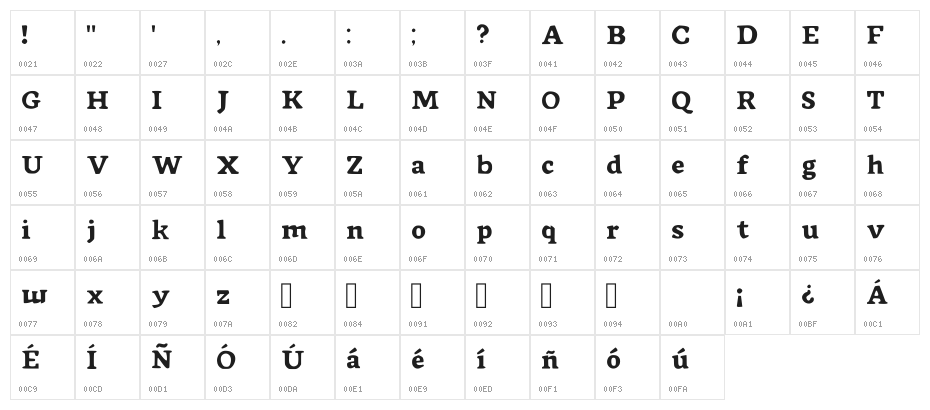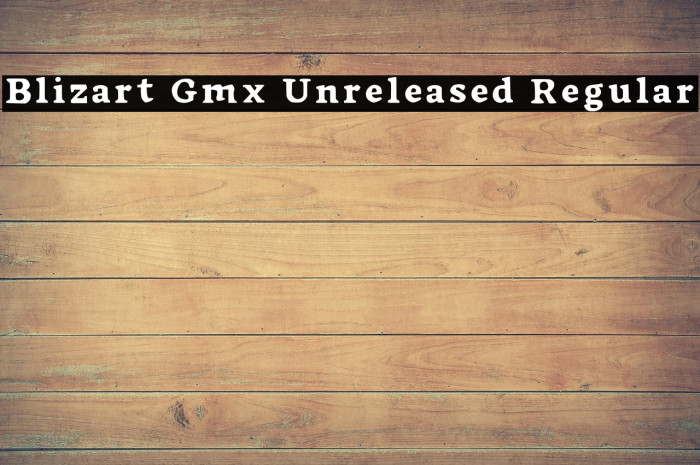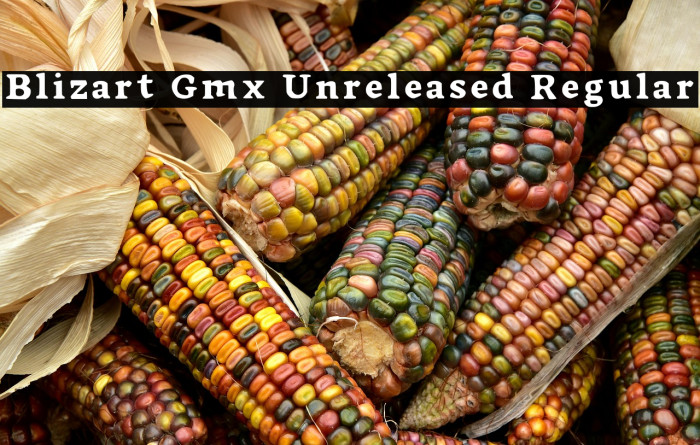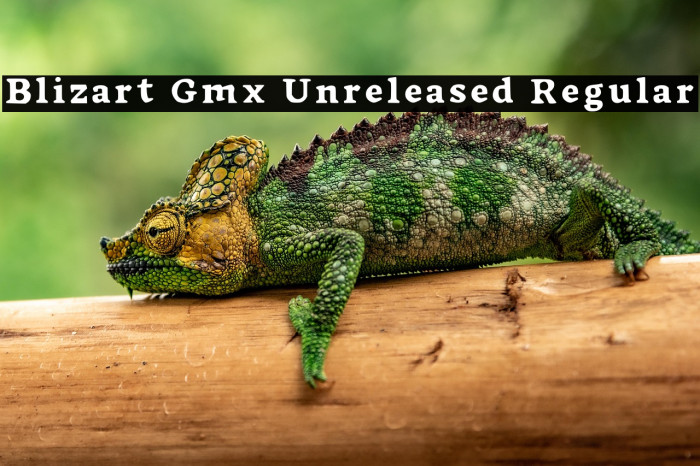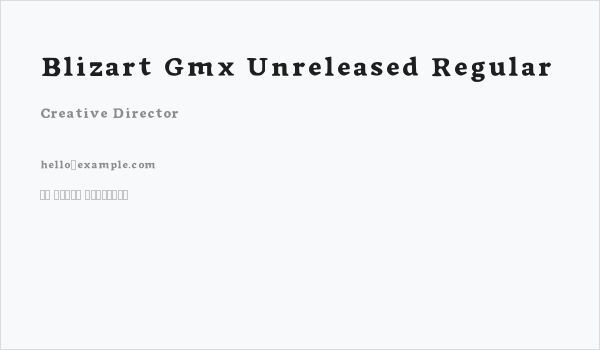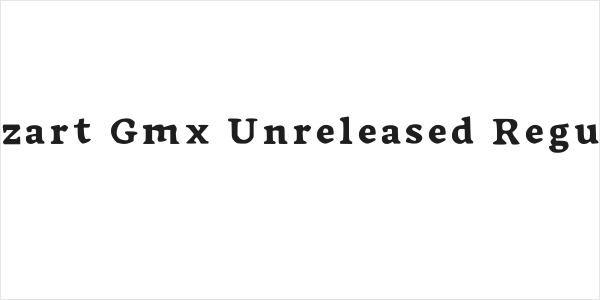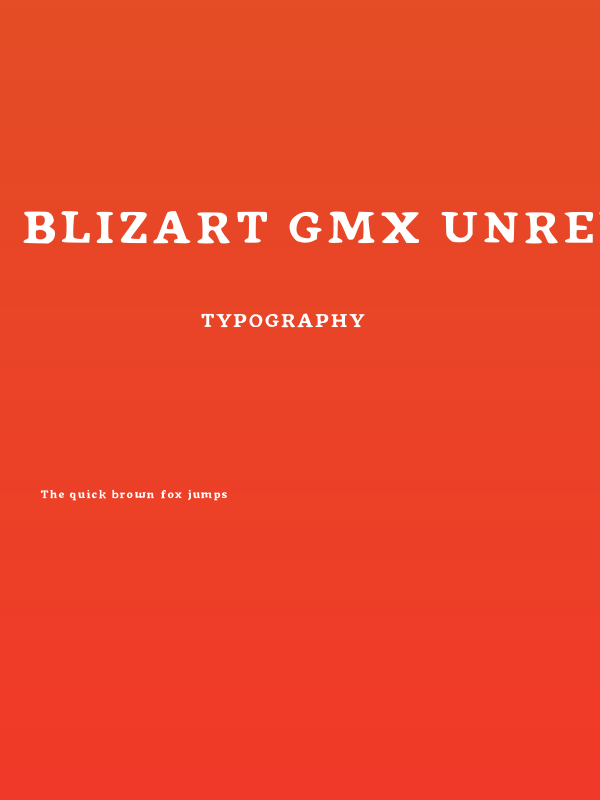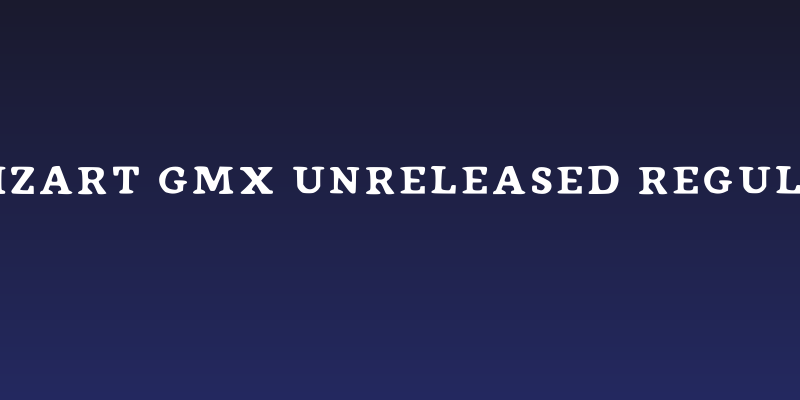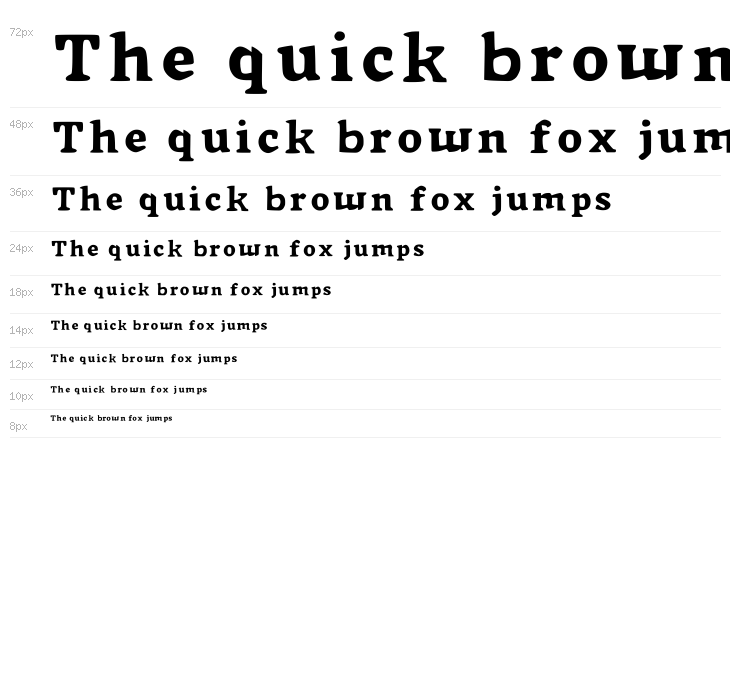
Blizart Gmx Unreleased Regular Font
Blizart Gmx Unreleased Regular Description
This font features a bold and robust design with distinct serifs that give it a classic yet slightly playful appearance. The characters are evenly spaced, providing a balanced and readable text. The uppercase letters are strong and commanding, while the lowercase letters maintain a consistent style that complements the overall design. The numbers and special characters are crafted to match the font's bold aesthetic, making it suitable for a variety of uses. The font's unique style is both eye-catching and versatile, making it ideal for projects that require a touch of elegance and strength.
| Proposed Projects | Ideal for branding, headlines, posters, and editorial design. |